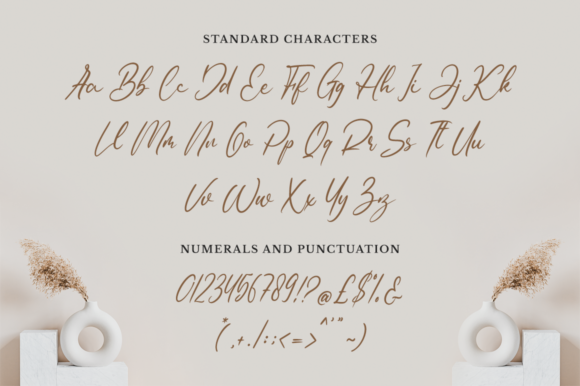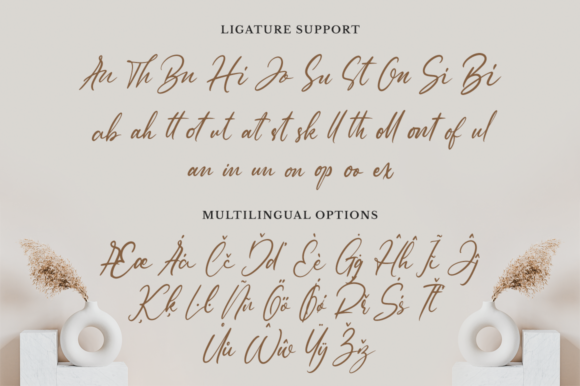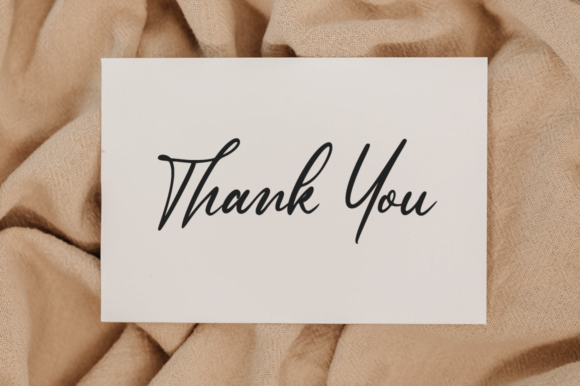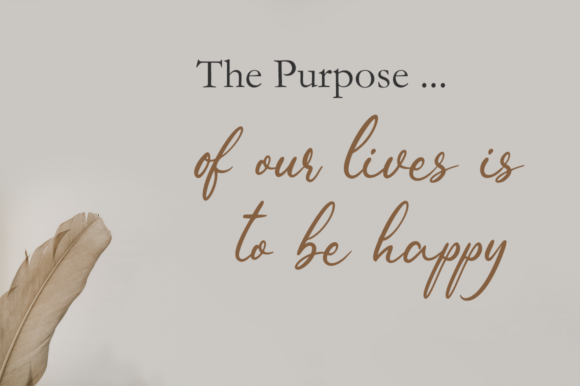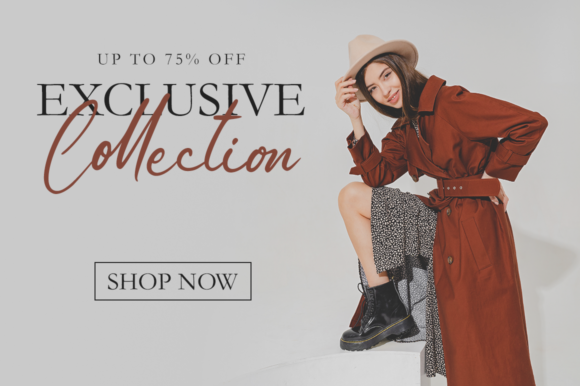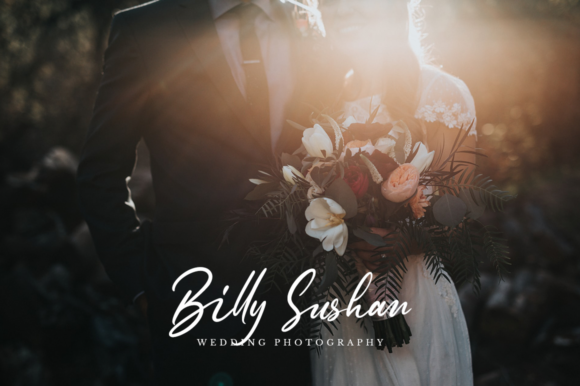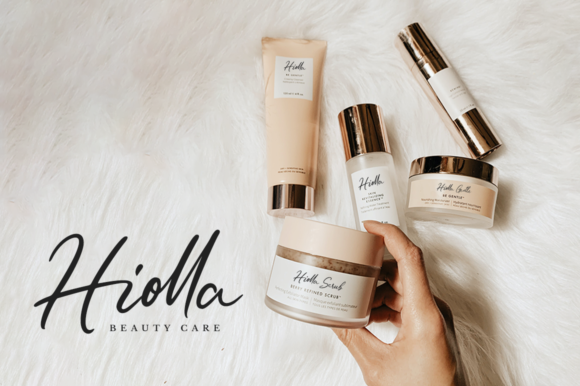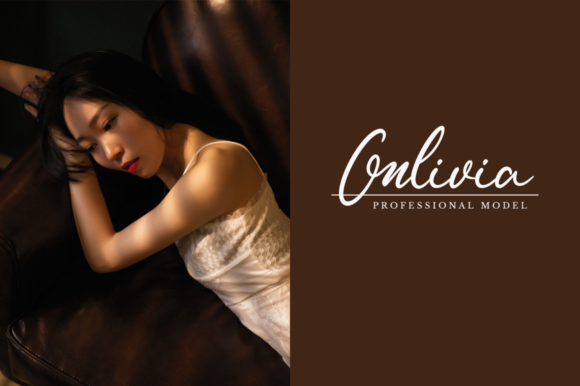
Billahoo Font
About Billahoo Font
“Billahoo” is a naturally stunning handwritten font that exudes elegance, sophistication, and a beautiful flowing style. With its graceful and organic letterforms, this font will elevate your lovely creations to the next level.
The inherent beauty of “Billahoo” lies in its natural and authentic look. The handcrafted strokes and subtle irregularities give it a unique charm and a sense of personality. Each letter flows seamlessly into the next, creating a smooth and harmonious rhythm in your designs.
The elegance of “Billahoo” makes it well-suited for a wide range of projects. Whether you’re designing wedding invitations, branding materials, greeting cards, logos, or any other creative work, this font will add a touch of refinement and sophistication.
The flowing nature of “Billahoo” lends itself to both formal and informal designs. It can bring a sense of luxury to elegant and high-end projects, as well as a soft and romantic feel to more casual and whimsical designs.
In addition to its visual appeal, “Billahoo” is also highly legible, ensuring that your message is conveyed effectively. Its clean and well-defined letterforms make reading effortless, making it suitable for various applications and mediums.
To make the most of “Billahoo,” consider combining it with complementary typefaces or using it as the main focal point in your designs. Its stunning flow and elegance make it ideal for headlines, titles, or any other prominent elements in your compositions.
Experiment with different sizes, weights, and spacing to create visual interest and hierarchy in your designs. “Billahoo” can also be enhanced with additional stylistic alternates or ligatures if available, further adding to its versatility and customization options.
Whether you’re aiming for a classic and timeless look or a more contemporary and artistic approach, “Billahoo” will elevate your designs with its naturally stunning appearance.
Embrace the elegance and beauty of “Billahoo” and let it inspire you to create breathtaking designs that captivate and leave a lasting impression.